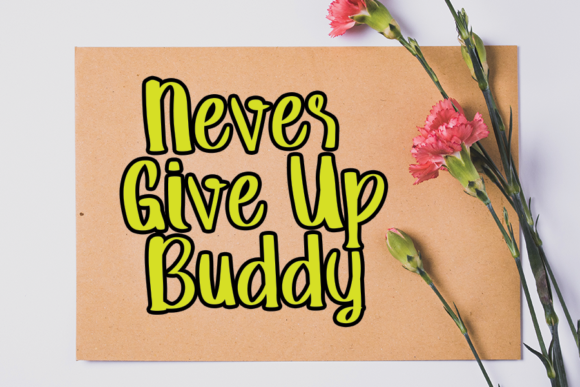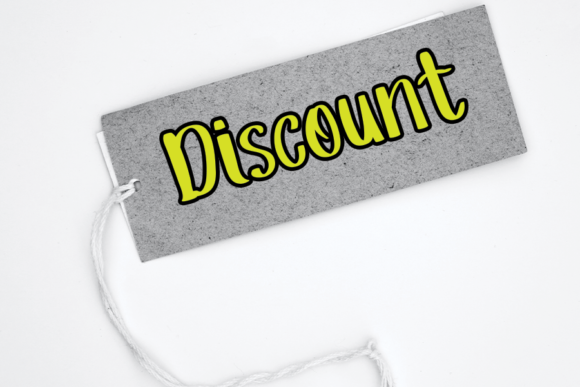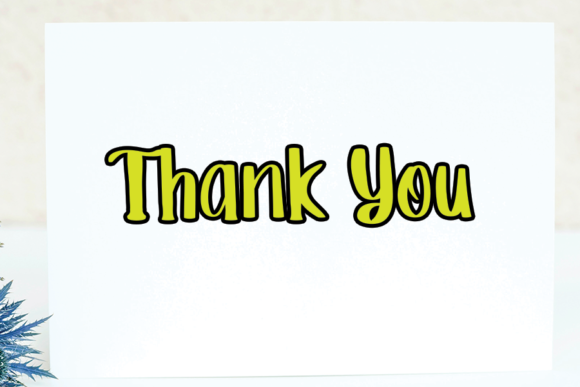
Introduction to Flower Handwriting Font
Have you ever stared at a blank page, pencil in hand, trying to bring your creative vision to life? The blank slate can be intimidating, but sometimes all it takes is the right tool to spark inspiration. For designers and artists, finding the perfect design resource can be the difference between a good project and a great one.
That’s where the Flower Handwriting Font comes in – a chic and quirky display font that’s sure to add a touch of whimsy to any creative project. With its high quality design and transparent background, this font is perfect for designers looking to add a unique touch to their work.
Whether you’re working on a design project or simply want to add a personal touch to your social media posts, the Flower Handwriting Font is a valuable resource that’s easy to download and use. Its versatility makes it perfect for a wide range of projects, from wedding invitations to social media graphics.
Key Features of Flower Handwriting Font
- High-quality design resource ideal for creative projects, including invitations, greeting cards, and more.
- Unique, handwritten style with a floral touch, perfect for adding a touch of elegance to any design.
- Includes a transparent background, allowing for easy layering and customization in design projects.
- Available in a single size, making it easy to scale and use in a variety of creative contexts.
- Perfect for designers and artists looking for a high-quality, free design resource to elevate their creative projects.
Honest Review: Flower Handwriting Font
I recently had the chance to use the Flower Handwriting Font in a creative project, and I’m excited to share my thoughts on this design resource.
What works well: ✨ The Flower Handwriting Font is a high-quality, free download that’s perfect for adding a personal touch to your designs. I love the unique, handwritten feel it gives to my text.
The Flower Handwriting Font also features a transparent background, which makes it easy to use in a variety of design scenarios.
Here are some of the key features I’ve noticed:
- Unique, handwritten feel
Limitations: ⚠️ While the Flower Handwriting Font is generally a great resource, I do wish it came in a few more weights and styles. This would make it even more versatile for use in different design contexts.
Overall, I’m really impressed with the Flower Handwriting Font. It’s a great addition to any designer’s toolkit, and I highly recommend it for your next creative project.
How to Use Flower Handwriting Font
Introduction to Flower Handwriting Font
Flower Handwriting Font is a high-quality design resource ideal for creative projects that require a personal touch. This free download offers a unique and elegant handwriting style, perfect for various applications.
Using Flower Handwriting Font in PowerPoint/Word
Insert the Flower Handwriting Font into your PowerPoint or Word document by selecting it from the font list. Use it to add a personal touch to your presentations or written content.
Tips for Getting the Most Out of Flower Handwriting Font
Use the font in conjunction with a transparent background to create a seamless design. Experiment with different font sizes, colors, and styles to achieve the desired effect.
Common Use Cases for Flower Handwriting Font
Use Flower Handwriting Font for wedding invitations, birthday cards, or other special occasion stationery. It’s also ideal for branding and logo design, as well as creating custom graphics for social media or websites.
Is the Flower Handwriting Font suitable for print or digital use?
The Flower Handwriting Font is designed to be versatile and suitable for both print and digital use. Its high-quality design ensures it looks great on a variety of mediums, from business cards to digital screens. However, please note that the font’s performance may vary depending on the specific design software and settings used.